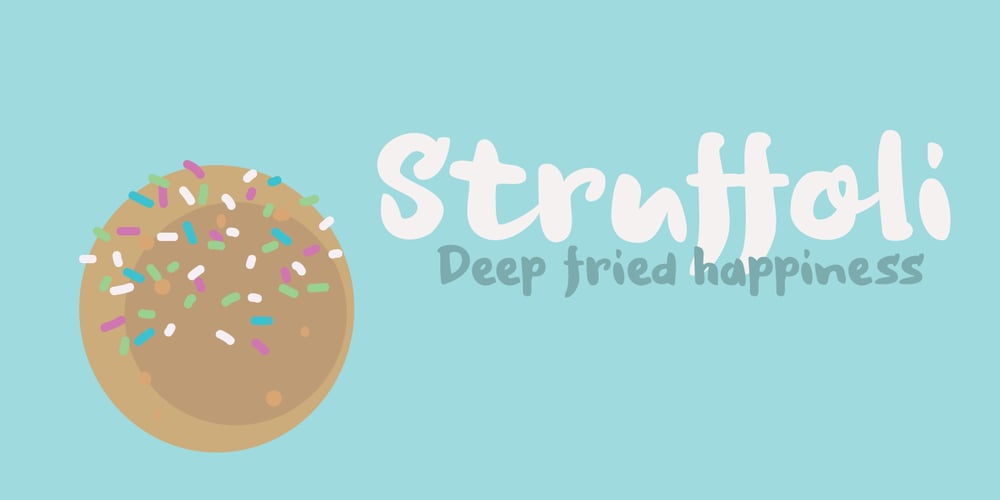
Struffoli Font Family was designed by David Kerkhoff and published by Hanoded. Struffoli contains 2 styles and family package options. Struffoli are small, marble sized deep fried dough balls from Naples. They are served with a variety of sweet condiments, like honey, sugar and sprinkles. There is nothing deep fried about Struffoli font, nor does it resemble a deep fried dough ball: I just liked the name and at least now I can say what Struffoli are! Struffoli was handmade using a brush and Chinese ink. It does look like a connected script font, but it is not (really): only a few letters connect, making it a more versatile font. Use it for your cookbooks, posters and toy packaging. Rest assured, it comes with a generous serving of diacritics.